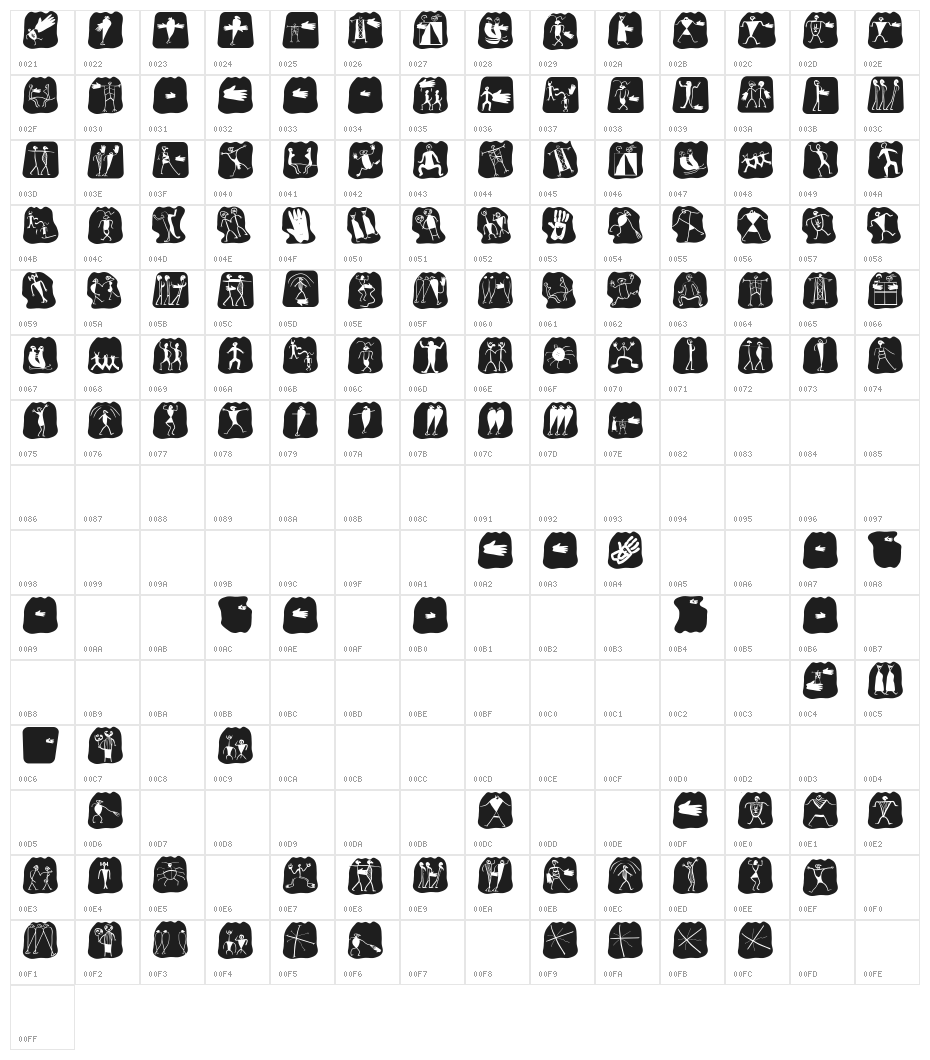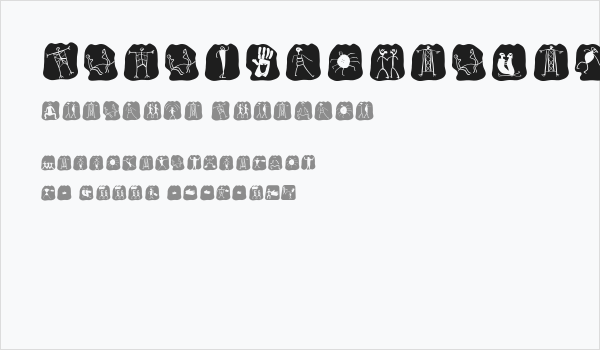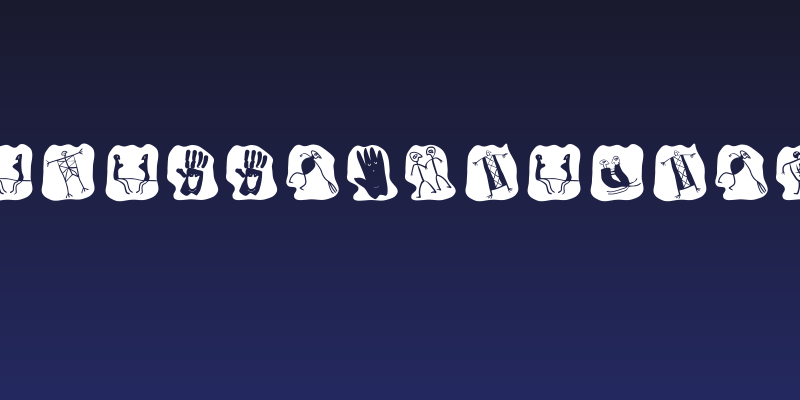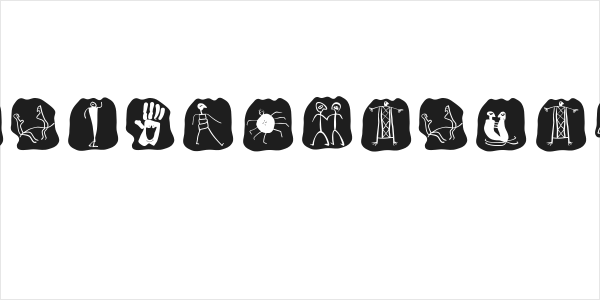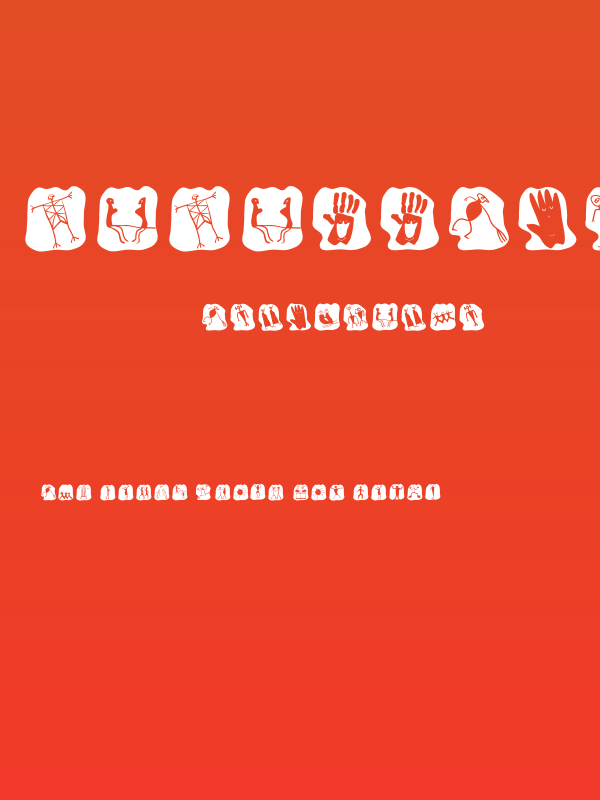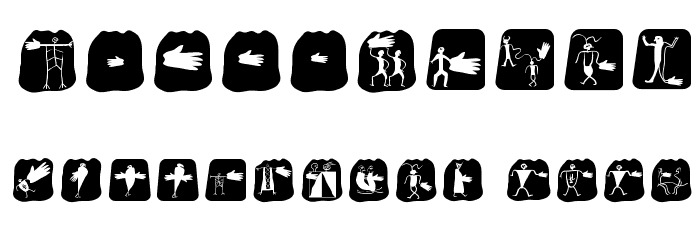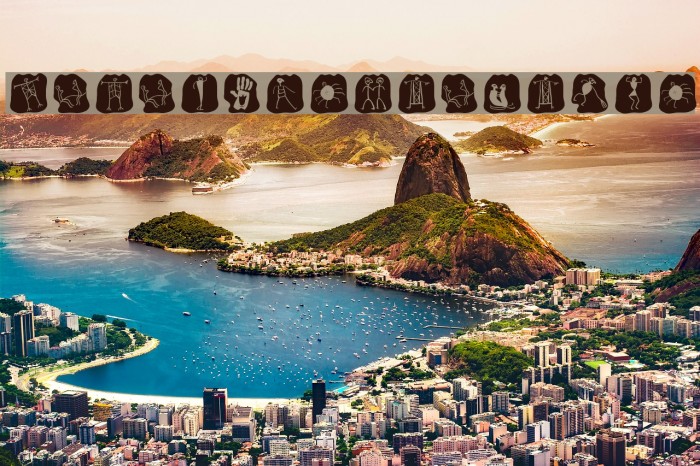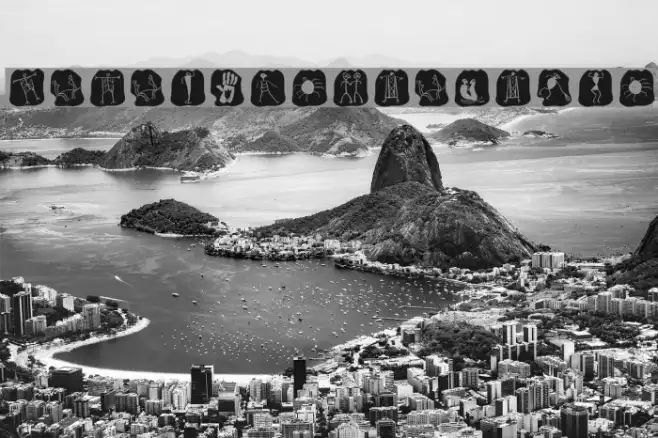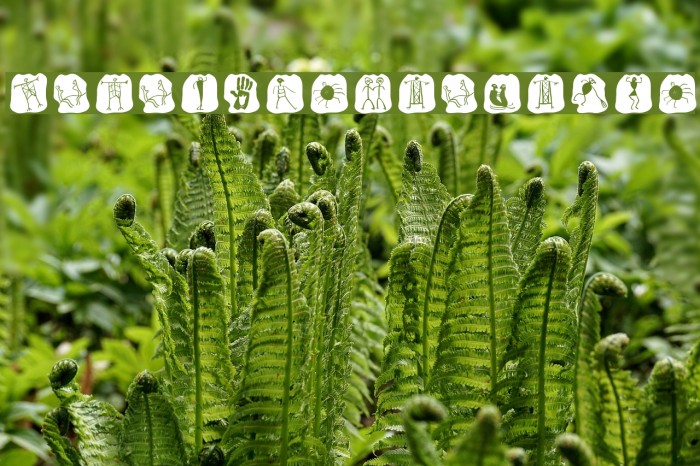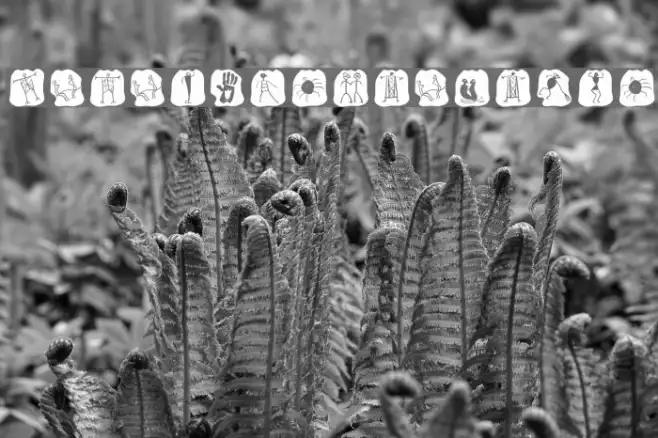
DadasStoneageTwo Font
DadasStoneageTwo Description
This font features a unique and playful design inspired by primitive art and stone carvings. Each character is represented by a whimsical illustration that resembles ancient cave drawings, with figures and shapes that evoke a sense of storytelling and history. The characters are enclosed in irregular, stone-like shapes, adding to the rustic and organic feel. The font's style is highly decorative and artistic, making it suitable for creative projects that aim to capture a sense of antiquity or cultural heritage. The overall appearance is bold and striking, with a hand-drawn quality that emphasizes individuality and creativity.
| Use Case | Logos, Posters, Book Covers |
| Proposed Projects | Ideal for use in creative projects such as posters, book covers, educational materials, or themed event invitations that seek to evoke a sense of history or cultural storytelling. |